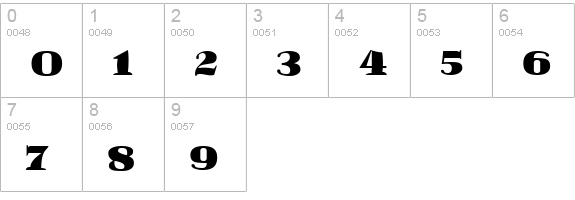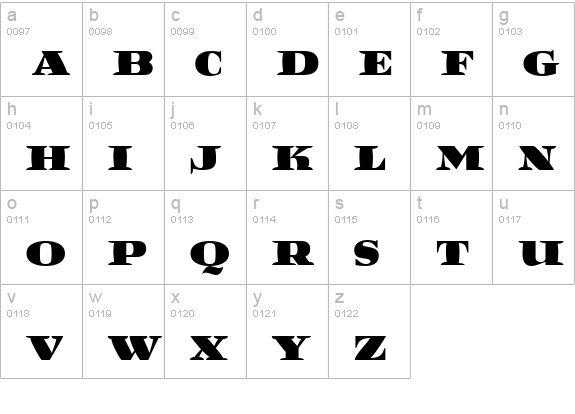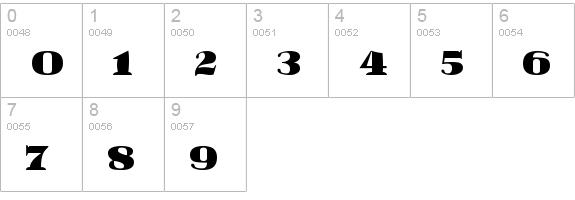
Reef MF Font Details
Reef MF font is a stunning display typeface that exudes elegance and sophistication. With its intricate details and stylish letterforms, this font is perfect for adding a touch of luxury to your designs. Whether you're working on branding materials, wedding invitations, or editorial layouts, Reef MF font will surely make a statement. The best part? Reef MF font is completely free to download at FontsMarket.com. You can easily access this gorgeous typeface and elevate your projects without any cost. Don't miss out on the opportunity to enhance your designs with the beauty and charm of Reef MF font today.